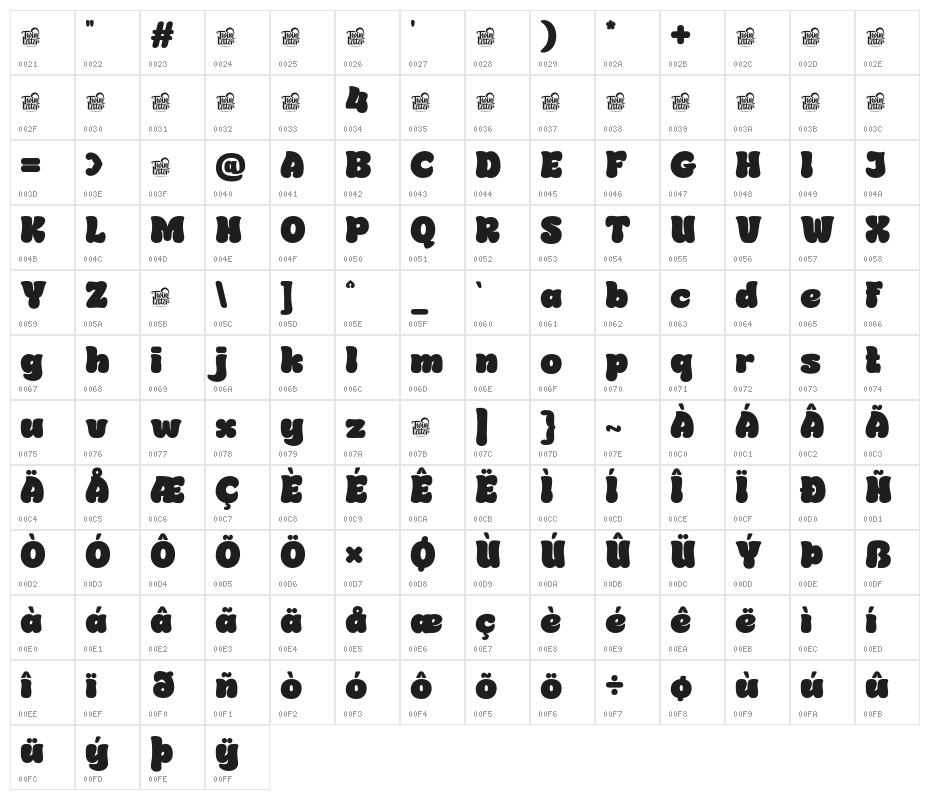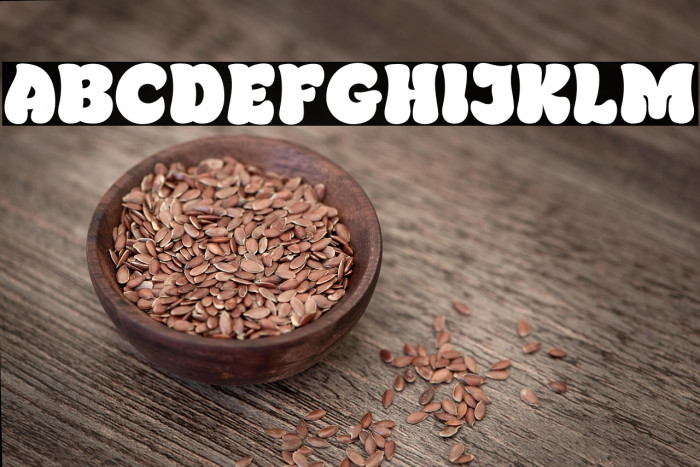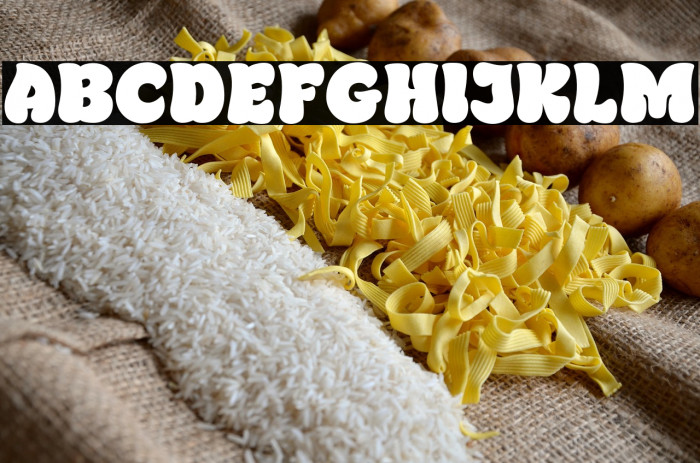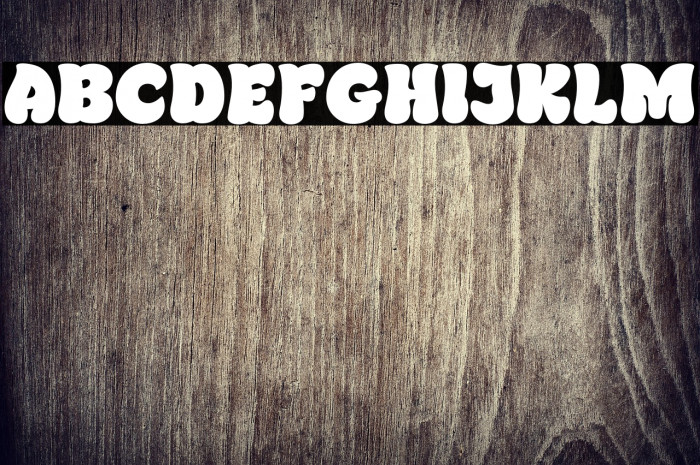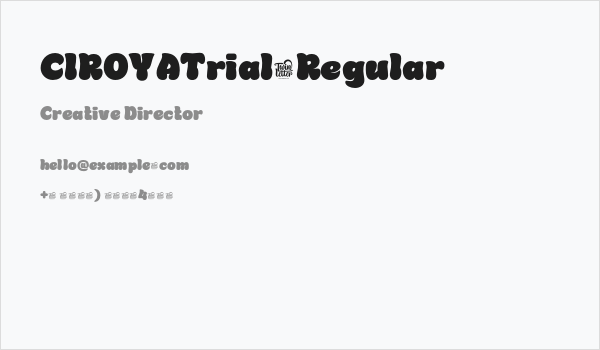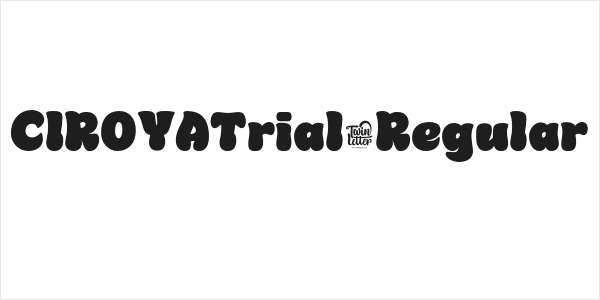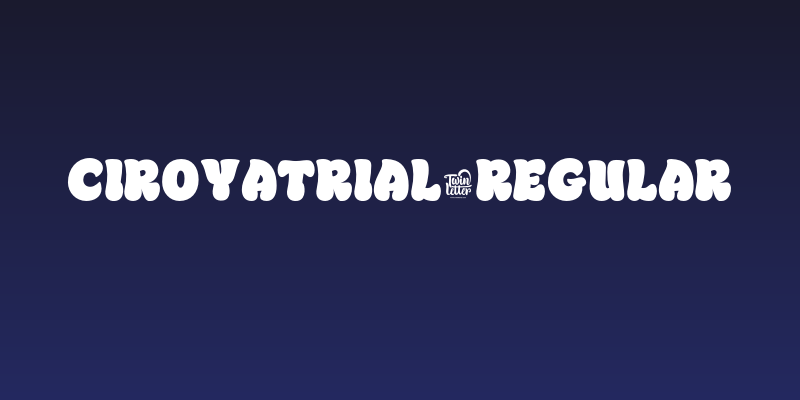
CIROYATrial-Regular Font
CIROYATrial-Regular Description
This playful and bold font features thick, rounded characters that exude a sense of fun and creativity. The letters are designed with a bubbly appearance, giving them a unique and eye-catching style. The uppercase and lowercase characters maintain a consistent weight, contributing to a cohesive look. The numbers and special characters follow the same design principles, ensuring uniformity across all elements. This font's distinctive style makes it ideal for projects that require a lively and engaging visual impact.
| Overall Style | Playful |
| Use Case | Logos, Headlines, Posters |
| Proposed Projects | Ideal for children's books, playful branding, party invitations, and creative posters. |